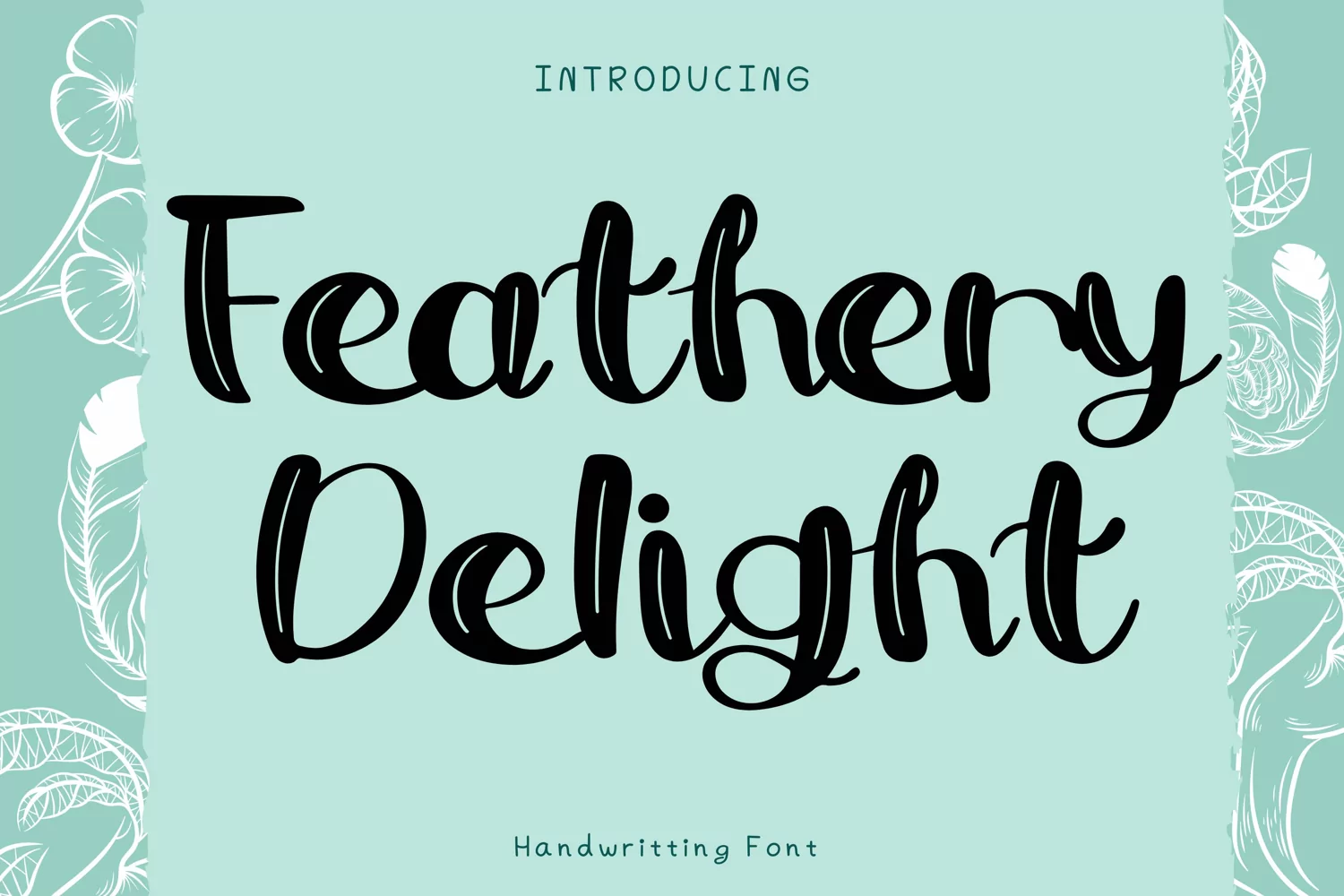
Feathery Delight Style
FeatheryDelight
Feathery Delight Style is a whimsical and clean handwritten font. It can easily be matched to an incredibly large set of projects, so add it to your creative ideas and notice how it makes them stand out!